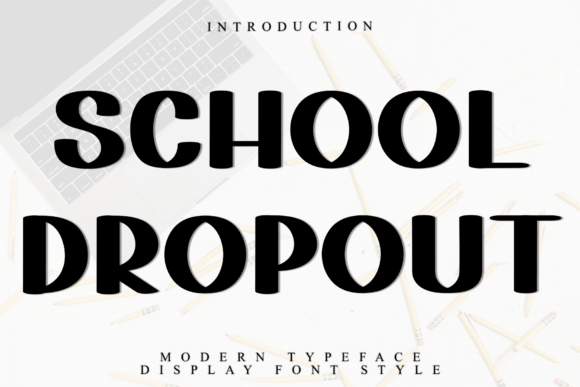
Using the School Dropout Font to Build a Memorable Small Business Brand
When you open a font preview and immediately start imagining it on your product labels or Instagram feed, you know you have found something special. School Dropout is that kind of typeface. It has a soft, slightly irreverent charm that feels hand-crafted rather than digitally perfect. The strokes carry a unique, almost scrapbook-like personality — full of character without trying too hard. For a small business owner, this is gold.
I run a small creative studio, and like many entrepreneurs, I am always hunting for design assets that can do heavy lifting across multiple touchpoints. A font that works only on a laptop screen isn’t enough. I need something that sings on a candle label, still looks intentional on a thank-you card, and stays readable on a mobile website banner. School Dropout ticks those boxes in a way that feels both distinctive and surprisingly practical.
What Makes the School Dropout Font Look So Special
This is not a sterile, geometric typeface. School Dropout leans into a deliberately imperfect rhythm — letters have varying weights, slightly jagged terminals, and a rhythm that mimics natural handwriting or chalkboard scrawl. It falls firmly into the display font category. That means it is built to grab attention at larger sizes rather than to fill paragraphs of small text. The overall mood is friendly, approachable, and a little nostalgic. Imagine the lettering on a vintage classroom poster, but refreshed for a modern audience.
The soft, unique touch mentioned in its description is exactly what gives it versatility. It can feel playful on a children’s brand, edgy on a streetwear tag, or warm and personal on a coaching business card. The key is that the typeface never feels generic. In a world where customers scroll past dozens of lookalike brands, that distinctiveness can help you stand out instantly.
Real-World Business Touchpoints You Can Elevate Right Away
As a business owner, you wear many hats — designer is often one of them. You need a font that works across materials without requiring a professional art director every time. Here is where School Dropout becomes a practical workhorse in the best way.
- Logos and Wordmarks: A bakery could set its name in School Dropout, letting those soft, uneven strokes echo the texture of flour-dusted dough. It instantly adds personality that a clean sans-serif alone cannot.
- Product Labels and Packaging: Handmade soap, candle jars, or small-batch jam labels come alive with this font. The letters feel tactile — almost like they were stamped or lettered by hand. That bridges the gap between digital design and the physical product beautifully.
- Thank-You Cards and Inserts: Including a handwritten-style note builds trust. School Dropout mimics that warmth without you having to hand-write a hundred cards.
- Social Media Graphics: Creating Instagram posts or Pinterest pins? Use School Dropout for the main quote or headline overlay. Its eye-catching nature stops the scroll, and the soft character keeps things feeling human rather than salesy.
- Website Banners and Hero Sections: As a display typeface, it shines in large headers on your homepage or sale announcement bars. It brings in brand personality without making the site look cluttered.
- Menus and Flyers: A café can use School Dropout for menu section titles while keeping descriptions in a simple font. That pairing creates a visual hierarchy that feels curated and cozy.
Consistency Builds Recognition and Trust
One of the quiet superpowers of a well-chosen font is consistency. When a customer sees your packaging, then visits your website, then spots your Instagram ad, the typeface is a silent thread weaving everything together. School Dropout offers enough personality that it becomes part of your brand’s visual memory — people will start to recognize your materials before they even read the words. That familiarity breeds trust, which is essential for small businesses competing against faceless chains.
I have seen this work with a client who runs an online boutique. Before, she used a mix of random script fonts — some curly, some modern. Nothing felt connected. We anchored her whole visual identity with a single distinctive display font for headlines (much like School Dropout) and suddenly her product photos, email headers, and packing slips all sang the same tune. Her repeat buyers noticed the coherence. It made her business look more established, even though she was a one-person show.
Practical Examples Across Different Business Types
Let’s ground this in some realistic scenarios. If you bake custom cookies and run a cottage food operation, you might set your business name in School Dropout on a pastel box lid. The irregular baseline of the letters hints at homemade quality, and customers mentally connect the font with the care you put into icing.
A beauty brand producing small-batch lip balms or serums could use School Dropout on the front label, paired with clean, minimal secondary text. The soft, artistic strokes offset the clinical feel of glass bottles and give an immediate indie-beauty vibe.
Whether you are launching a new candle line, refreshing a boutique’s online presence, or printing menus for your café, the right display typeface can pull all your creative efforts together. School Dropout offers that hand-drawn, organic warmth without sacrificing versatility. When used thoughtfully across your business touchpoints, it becomes one of those quiet, consistent design elements that make customers feel they are buying from a brand, not a machine.